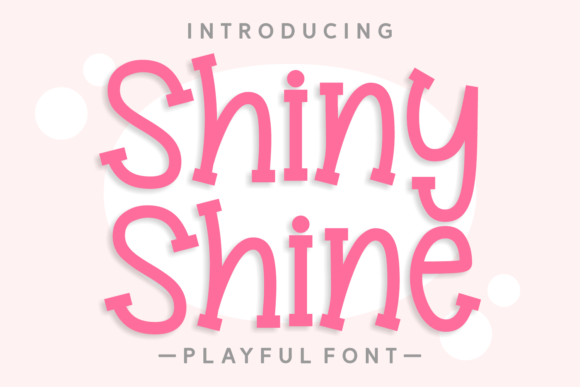
Introducing Shiny Shine Font, the embodiment of elegance and playfulness, designed by the talented team at Creative Fabrica Fonts. Prepare to be captivated by its thin and tall lines, a visual symphony that adds a touch of charm and whimsy to your creative projects.
The Shiny Shine Font is a serif masterpiece, a calligraphic delight that exudes a timeless aura. Its meticulously crafted characters possess a delicate balance, striking a perfect harmony between classicism and modernity. With each letter, you'll experience a sense of artful precision, ensuring that your words come to life with grace and impact.
More than just a font, Shiny Shine is an artistic expression, an ode to imagination and joy. Its versatile nature makes it the perfect adornment for quotes, birthday invitations, children's books, whimsical cards, art prints, apparel, and logos. With Shiny Shine as your creative companion, you can effortlessly weave a tapestry of emotions, captivating your audience with every stroke.
With Shiny Shine Font, you'll embark on a journey of creativity, a voyage of self-expression where imagination knows no bounds. Its enchanting presence will add a touch of magic to your designs, leaving an indelible mark on the hearts of your beholders. Embrace the beauty of Shiny Shine, and let your creativity soar to new heights.